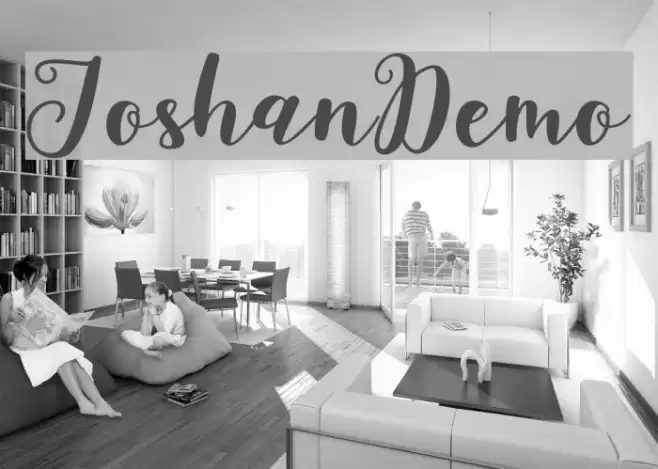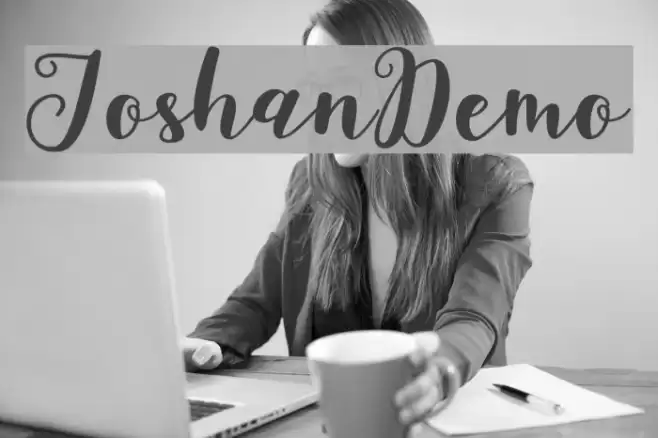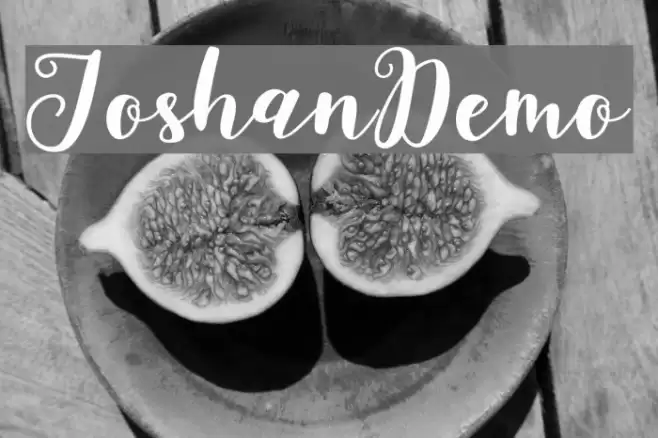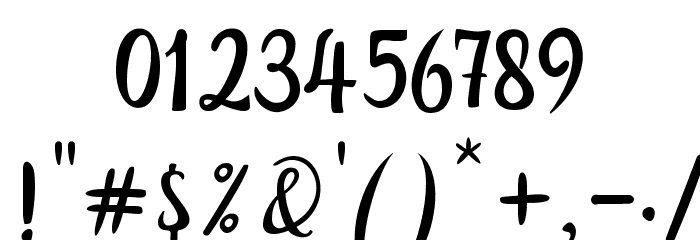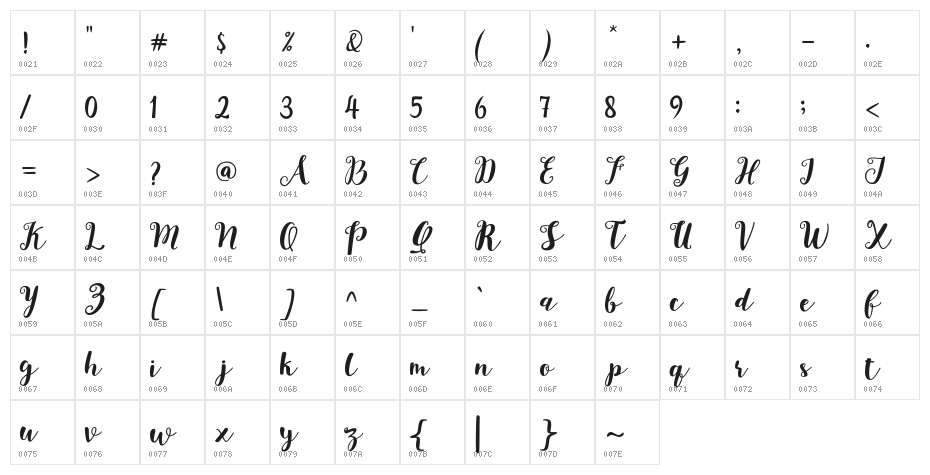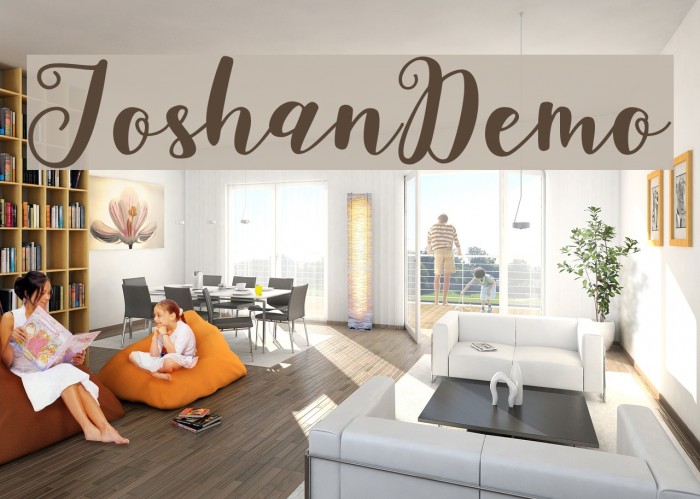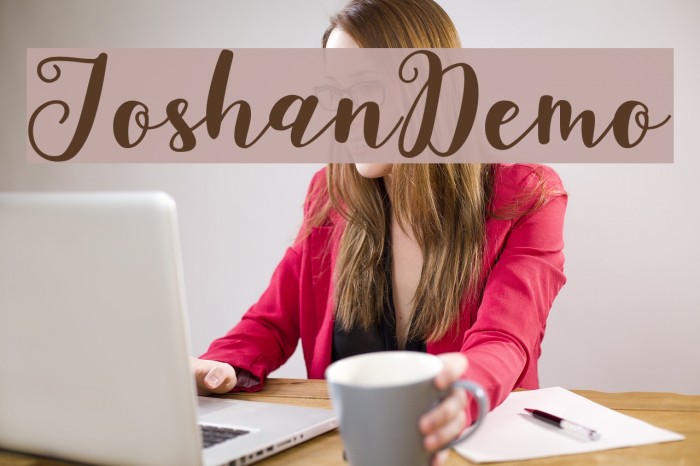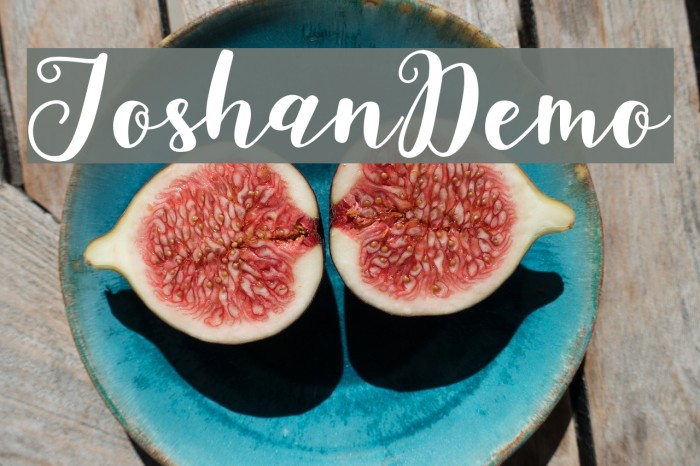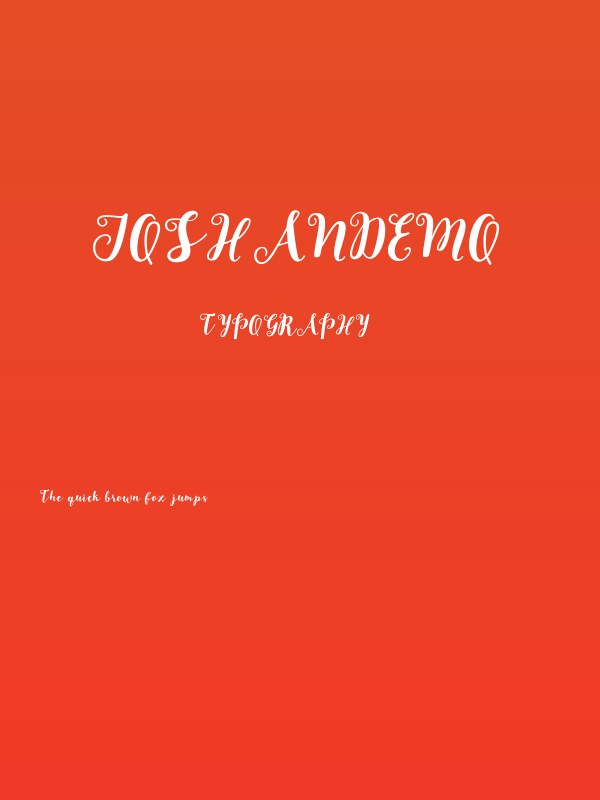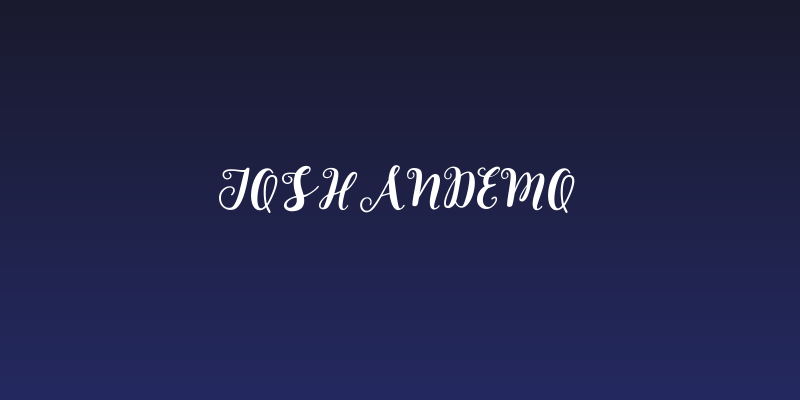
JoshanDemo Font
JoshanDemo Description
This font features a lively and elegant script style with a modern twist. The characters are crafted with smooth, flowing strokes that give a sense of movement and grace. The uppercase letters are particularly ornate, with swirls and loops that add a decorative flair. The lowercase letters maintain a consistent style, complementing the uppercase with their own subtle curves. Numbers and special characters are designed to match the overall aesthetic, ensuring a cohesive look across all text elements. This font is ideal for projects that require a touch of sophistication and creativity.
A lively and elegant script font with modern, flowing strokes from Uncategorized fonts.
- Proposed Projects: Ideal for wedding invitations, greeting cards, branding, and elegant packaging.
- Use Case: Logos, Invitations, Decorative text